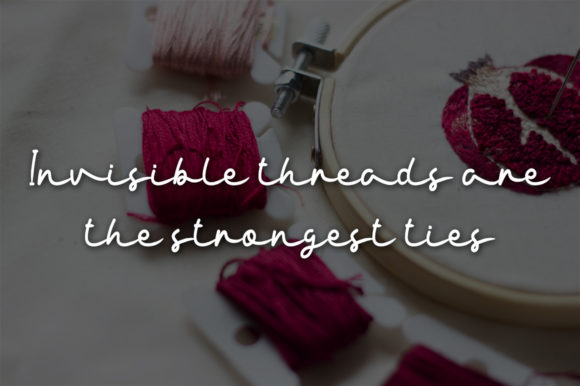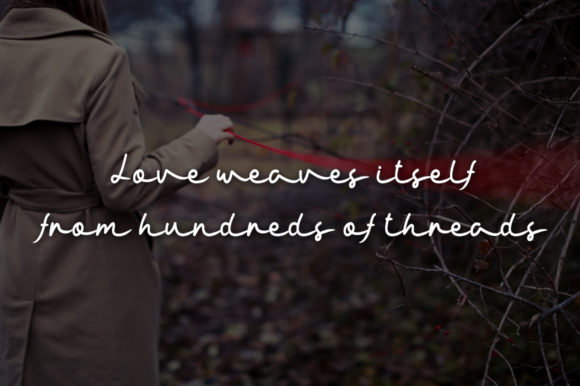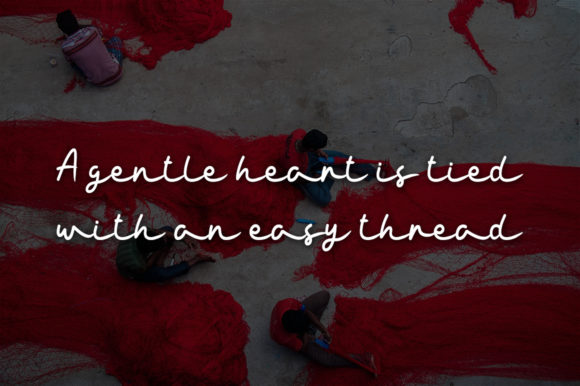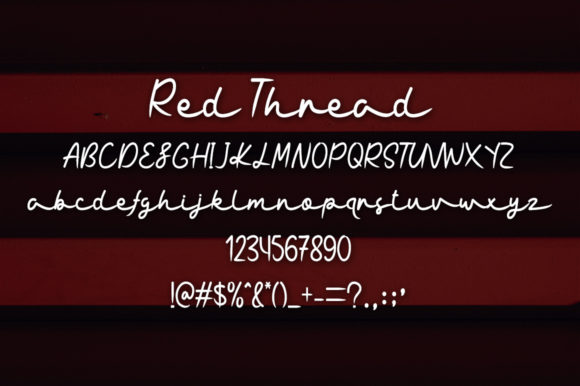
Introduction to Red Thread Font
Remember that moment when you stumbled upon the perfect design element for your creative project? For designers, finding that elusive piece that elevates a concept from good to great is a thrill like no other. And for those who’ve been searching for a high-quality, delicate font to add a touch of romance to their work, we’re excited to introduce you to the Red Thread Font.
This sweet and dainty handwritten font is perfect for adding a personal, whimsical touch to your designs. Whether you’re crafting wedding invitations, greeting cards, or any other project that calls for a romantic and elegant feel, the Red Thread Font is an invaluable design resource that’s sure to impress. With its transparent background and free download option, you can easily integrate this beautiful font into your creative endeavors without breaking the bank.
Key Features of Red Thread Font
- Transparent background, allowing for seamless integration with any design
- Supports various languages and characters, making it a versatile design resource
- Unique, hand-drawn style with a touch of elegance, setting it apart from other fonts
Honest Review: Red Thread Font
As a designer, I’m always on the lookout for high-quality design resources to enhance my creative projects. The Red Thread Font is a stylish script font that caught my attention. Upon closer inspection, I found that it has a lot to offer.
What works well: ✨ The Red Thread Font has a beautiful, elegant design that’s perfect for creating eye-catching headlines and titles. The font is also highly customizable, allowing me to adjust the opacity and transparency to suit my needs. The transparent background option is a game-changer for designers who want to add a touch of sophistication to their work.
- Customizable opacity and transparency
However, there are a few limitations: ⚠️ The font is not suitable for large blocks of text, as it can become overwhelming. Additionally, the font may not be compatible with all operating systems, so be sure to test it before using it in a project.
Overall, I’m impressed with the Red Thread Font. It’s a valuable addition to any designer’s toolkit, and I’m excited to use it in my next creative project.
Tips for Getting the Most Out of Red Thread Font
For the best results, use the Red Thread Font in conjunction with other high-quality design resources. Experiment with different font sizes, colors, and styles to create a unique look for your project.
The Red Thread Font is ideal for a variety of creative projects, including logos, business cards, and marketing materials. Its transparent background makes it easy to use in conjunction with other design elements.
Q: Can I use the Red Thread Font with a transparent background?
Yes, the Red Thread Font is designed to be used with a transparent background, making it ideal for use in graphic design, digital art, and other creative projects where a transparent background is required.